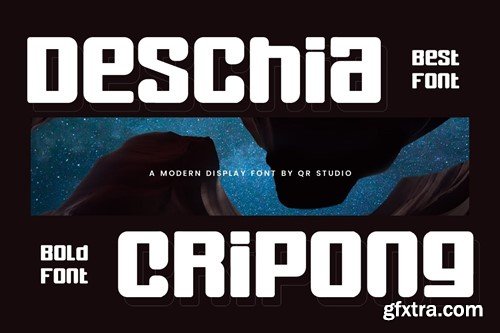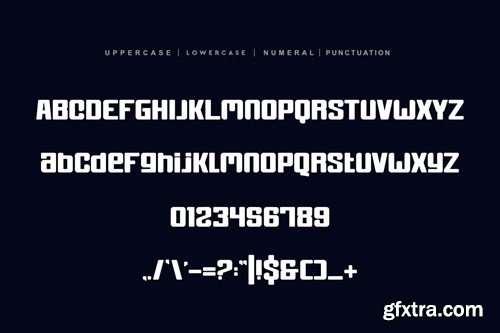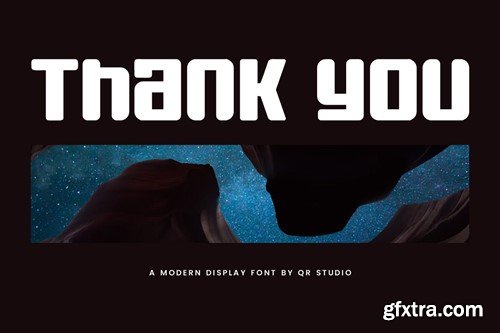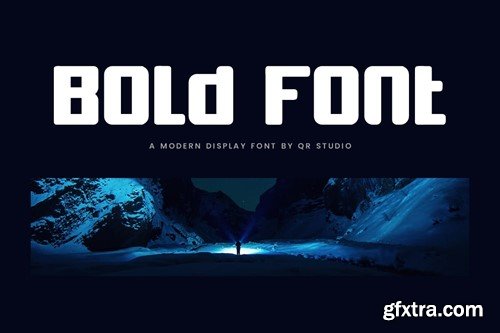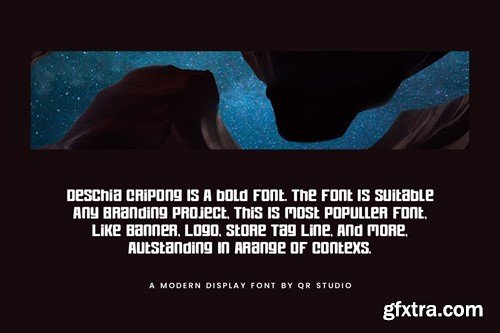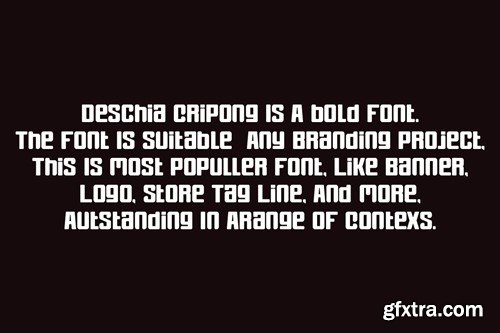
Cripong - 薄圆体字体 FH34MSU
Deschia Cripong - Thick & Round Font FH34MSU
Deschia Cripong - Thick & Round Font
Deschia Cripong Font is a bold and authentic display font. The font is suitable for any branding project like poster, logo, sport, and many more. Outstanding in a wide range of contexts.